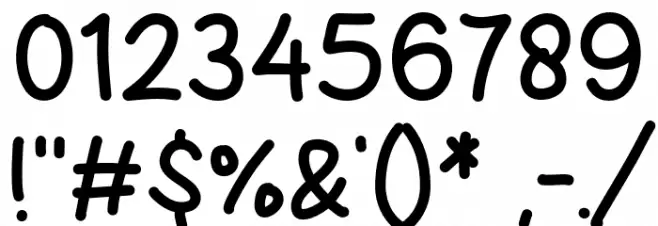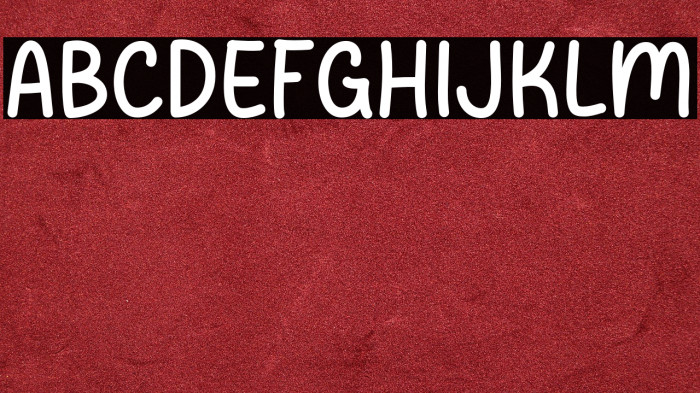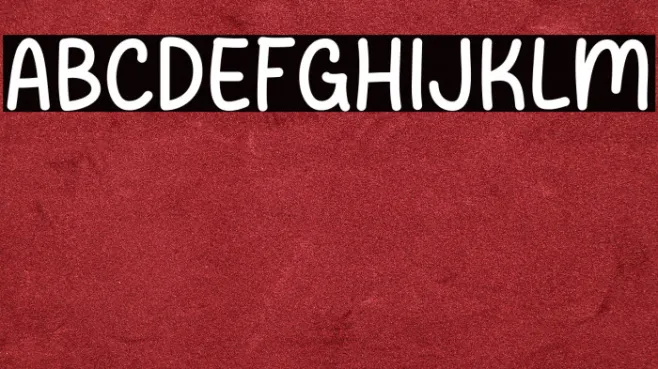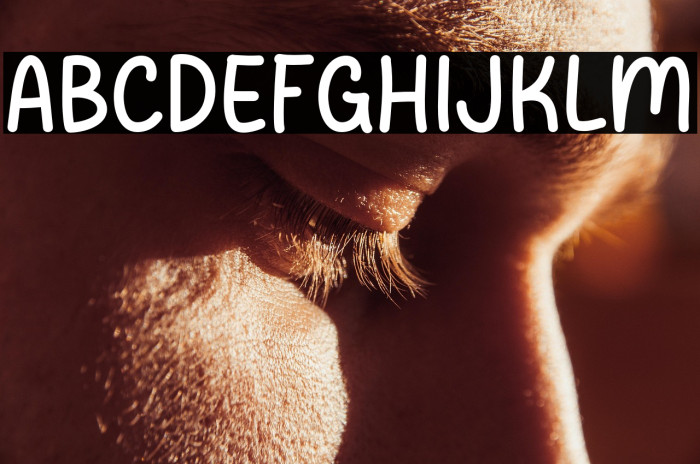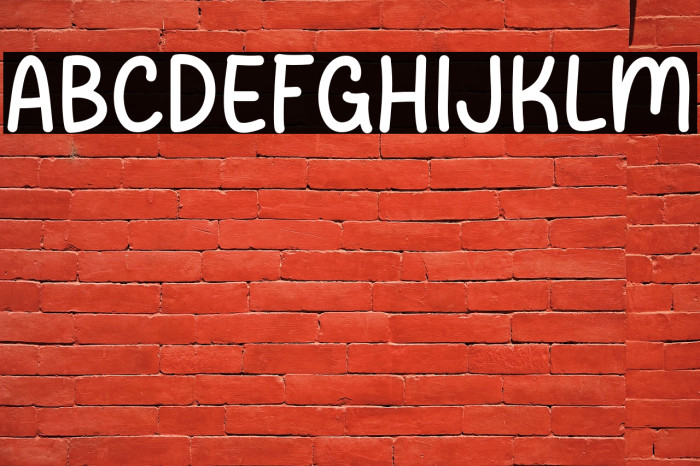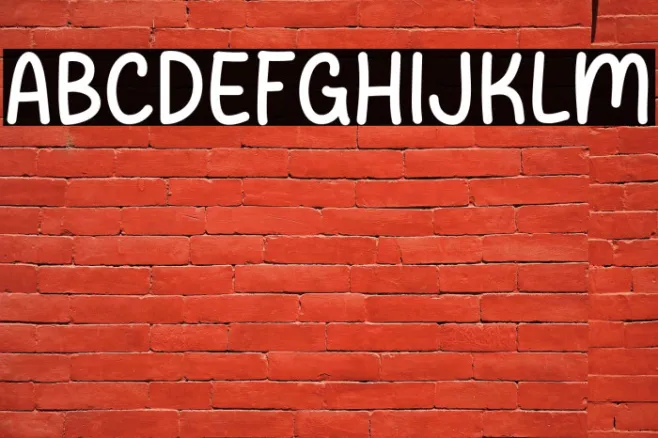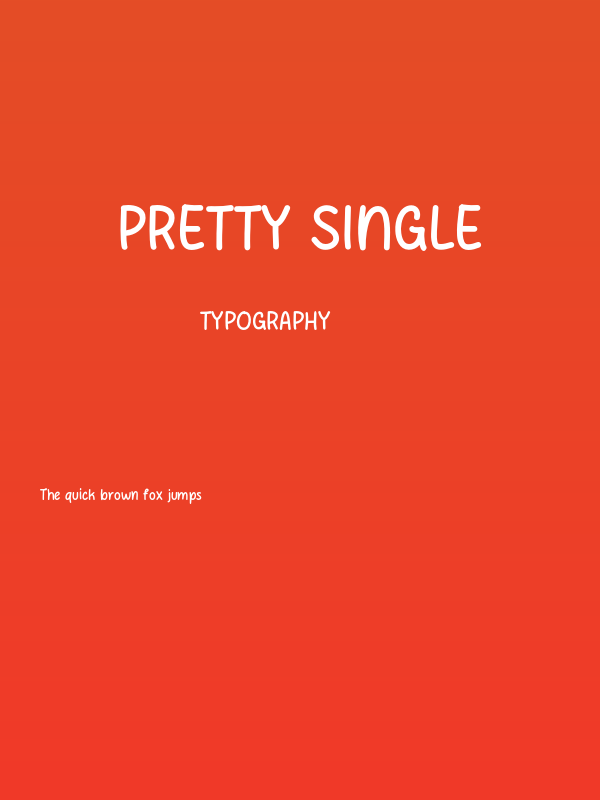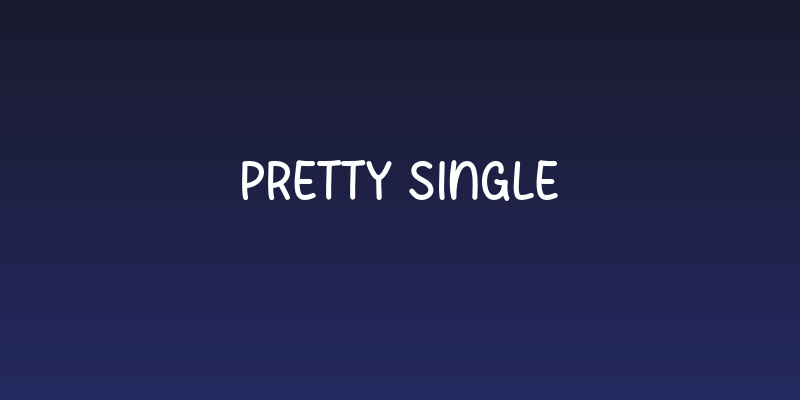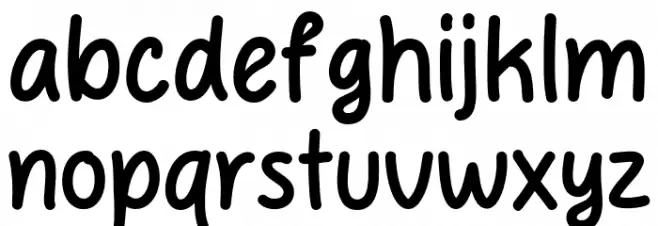
Pretty Single Font
Pretty Single Description
This playful and rounded font exudes a friendly and approachable vibe, characterized by its smooth curves and consistent stroke width. The letters are slightly elongated, giving a whimsical touch while maintaining readability. The numerals and special characters follow the same rounded style, ensuring a cohesive look across all text elements. Its informal and casual appearance makes it suitable for projects that require a personal or lighthearted tone.
| Use Case | Headlines, Informal text, Branding |
| Proposed Projects | Ideal for children's books, greeting cards, playful branding, and casual invitations. |